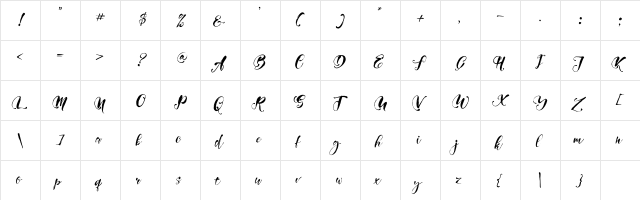
Girly Things Demo Version Italic
Design Context for Girly Things Demo Version Typeface
Girly Things Demo Version is a composed and adaptable typeface that performs quietly and consistently across a wide range of design contexts. The slanted form adds forward momentum and visual energy. Its slender proportions lend an understated elegance to any composition.
Pro Tip: Use Girly Things Demo Version for emphasis, pull quotes, and subheadings where its slanted energy can add rhythm to the layout.